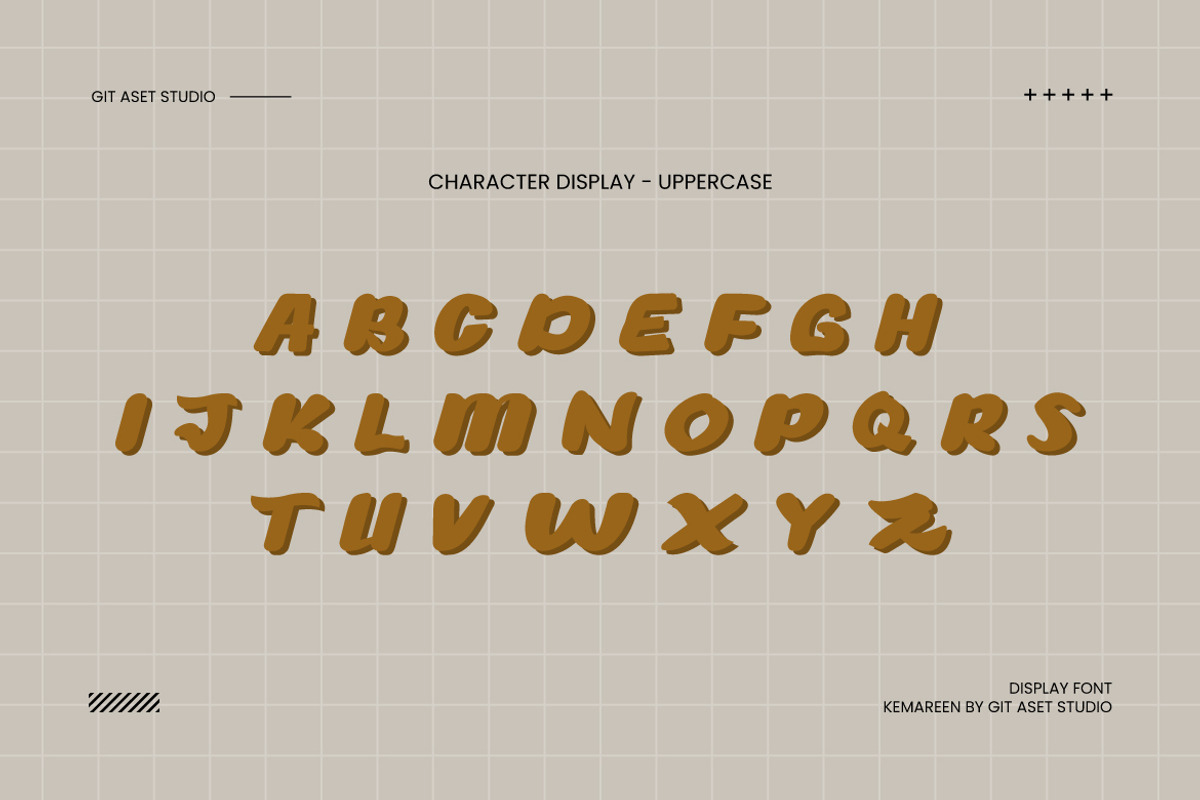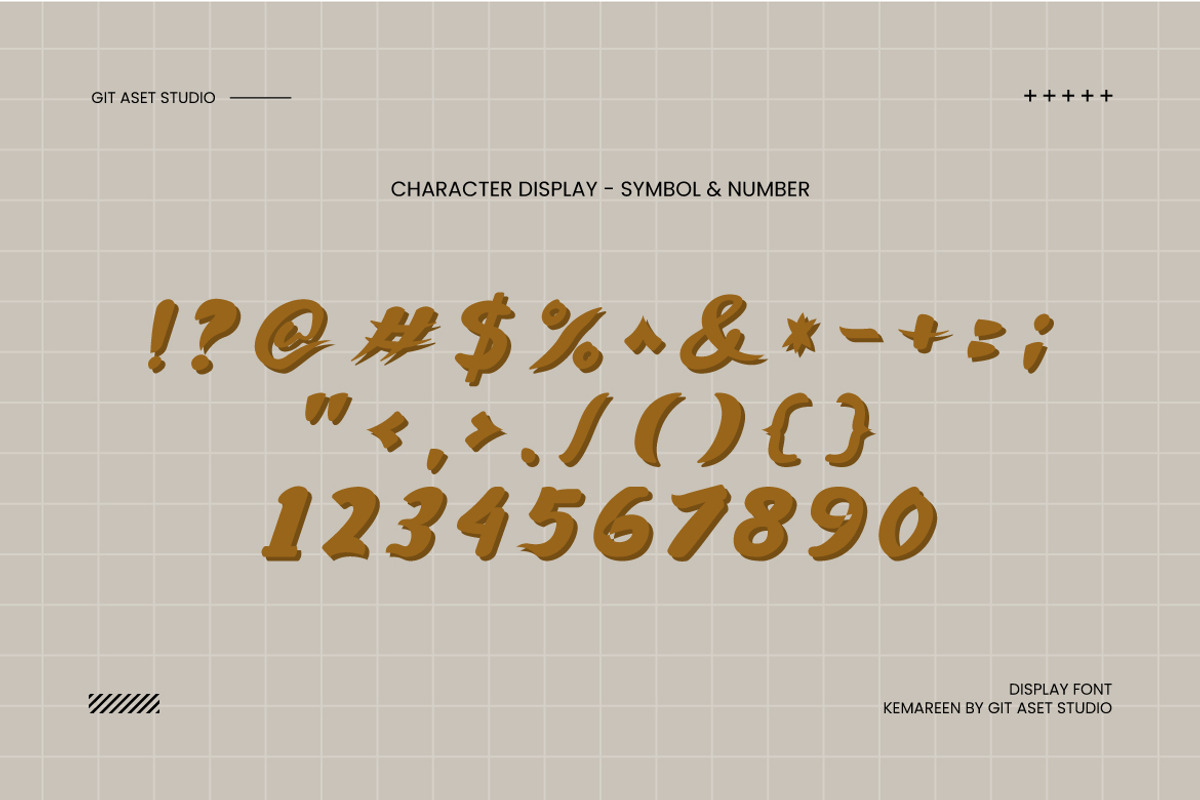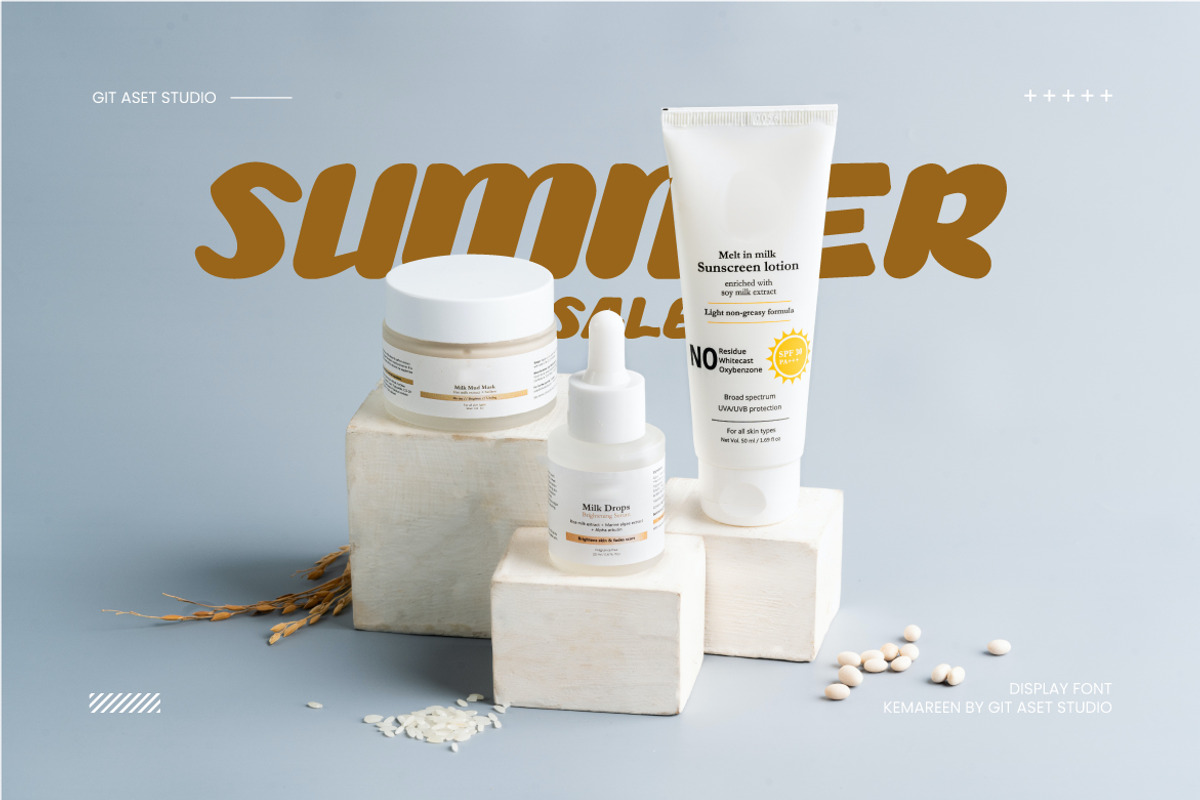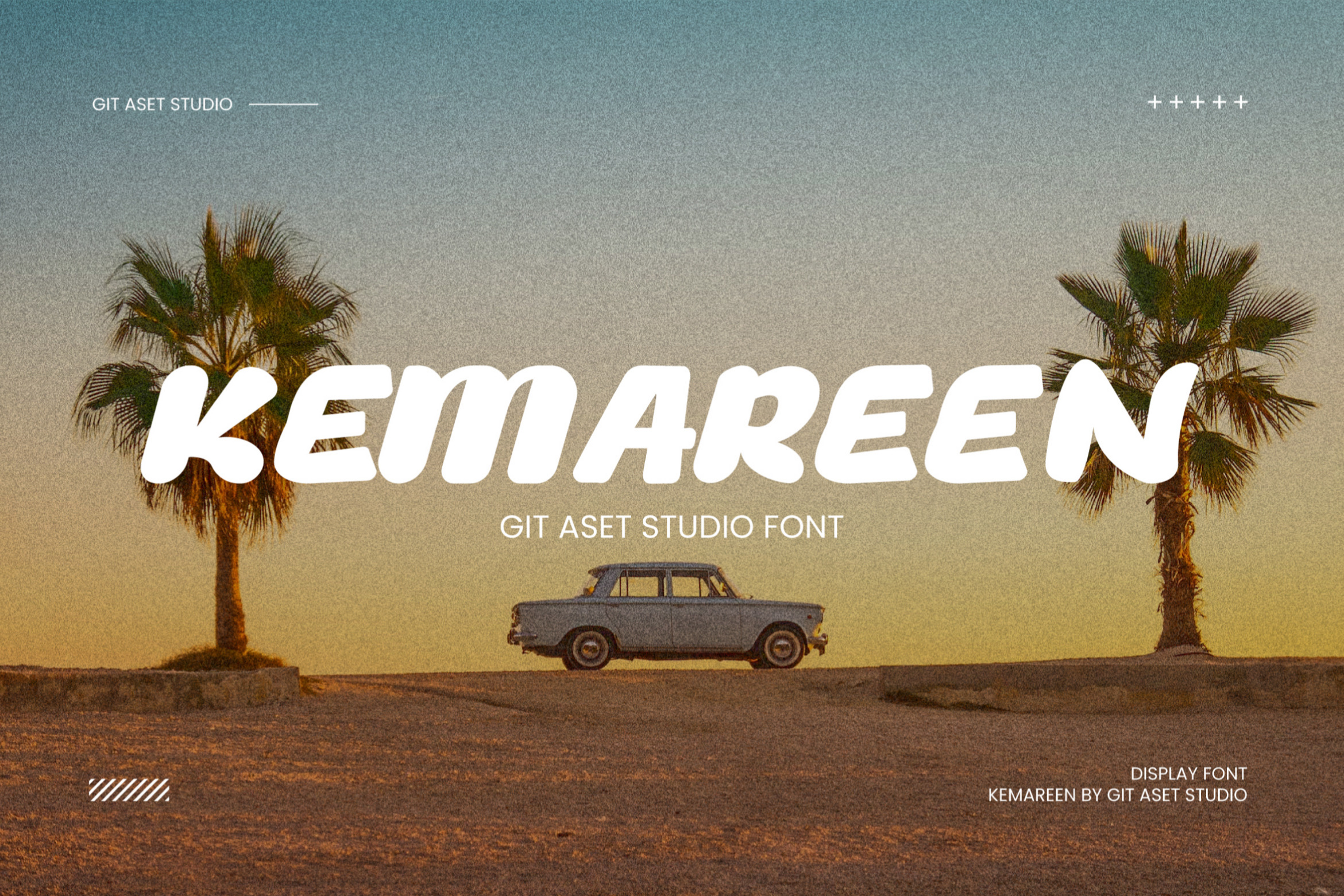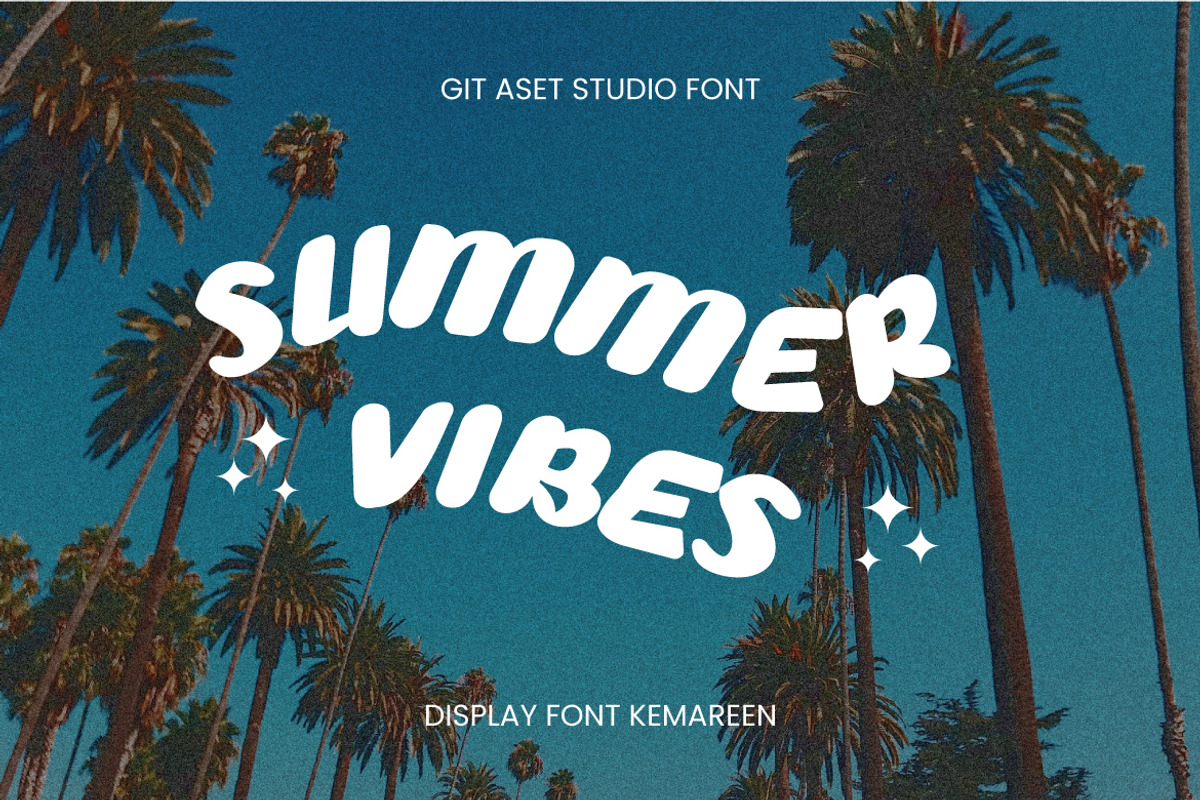
Kemareen Display Font
Kemareen Display Bold Font
This fascinating font asset offers a mesmerizing display font available in both OTF and TTF file formats. With its captivating design, it adds a touch of uniqueness to any project. Although it doesn't possess ligatures and alternate characters, it compensates with its distinctive flair.
This font asset opens up a world of creative possibilities, allowing you to create stunning designs that demand attention. Whether you are working on posters, logos, packaging, or social media graphics, this font asset will infuse your projects with a touch of elegance and individuality.